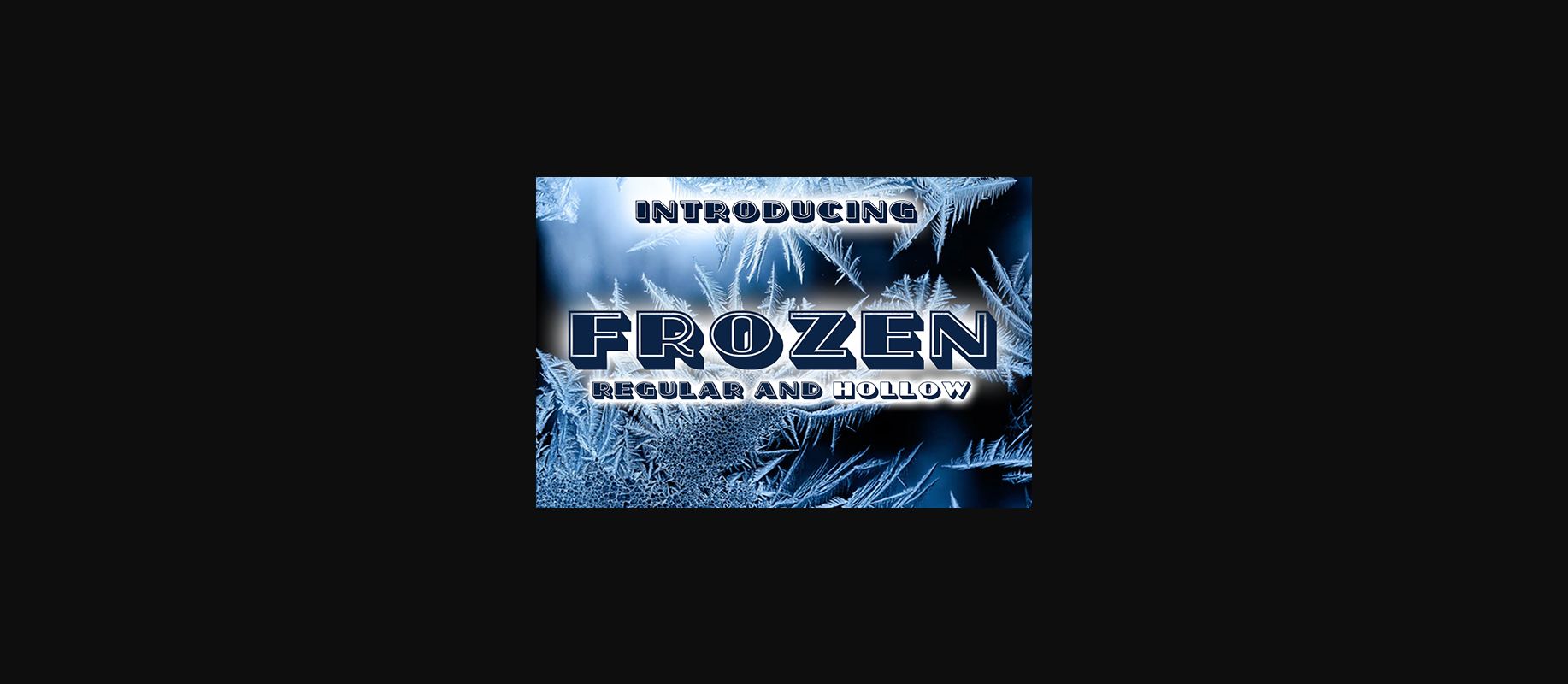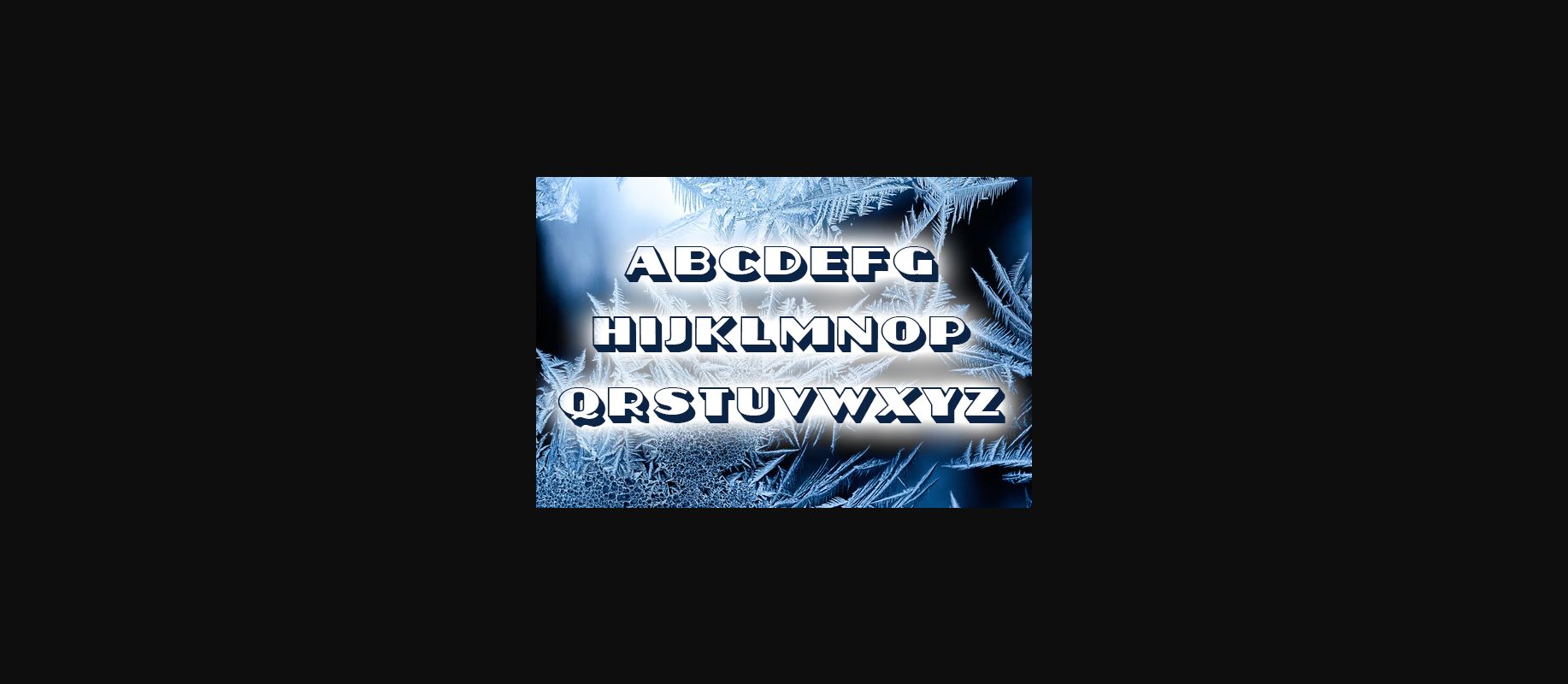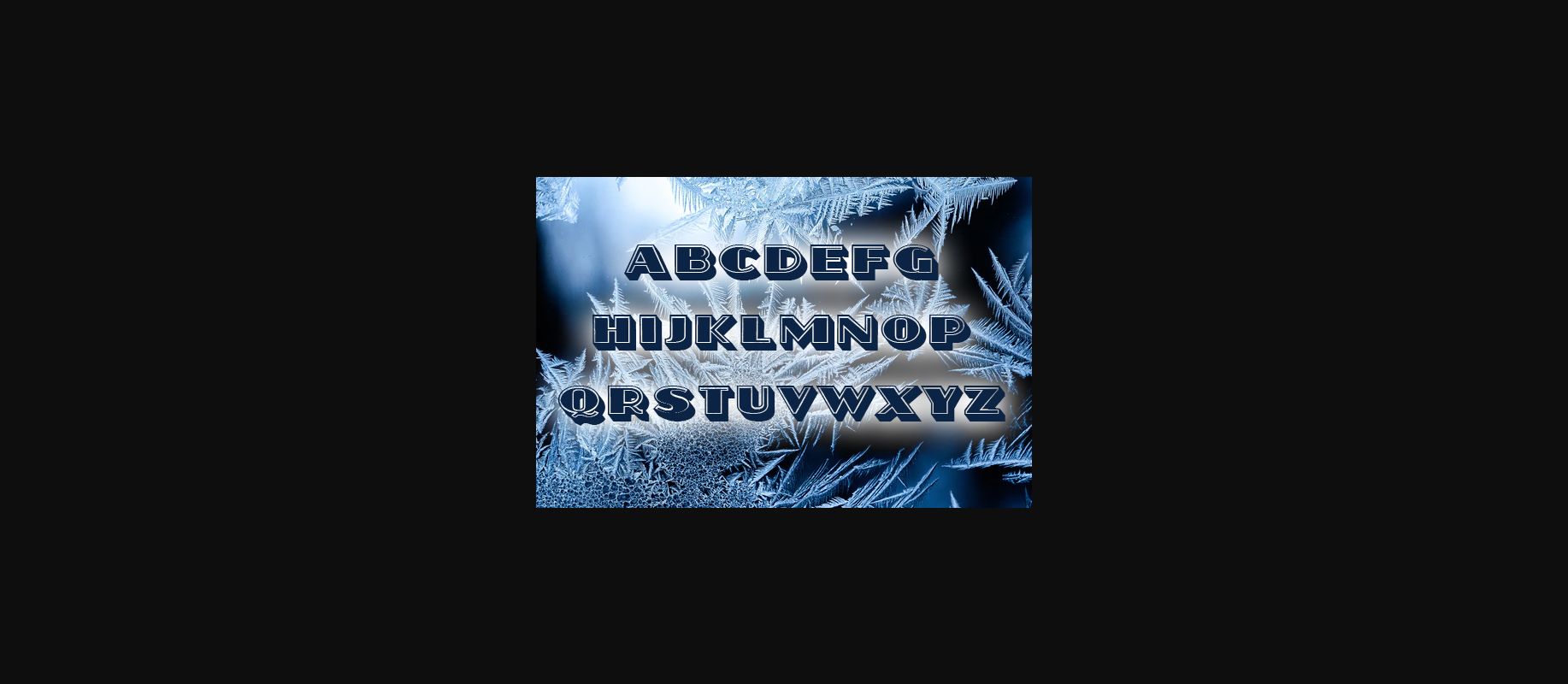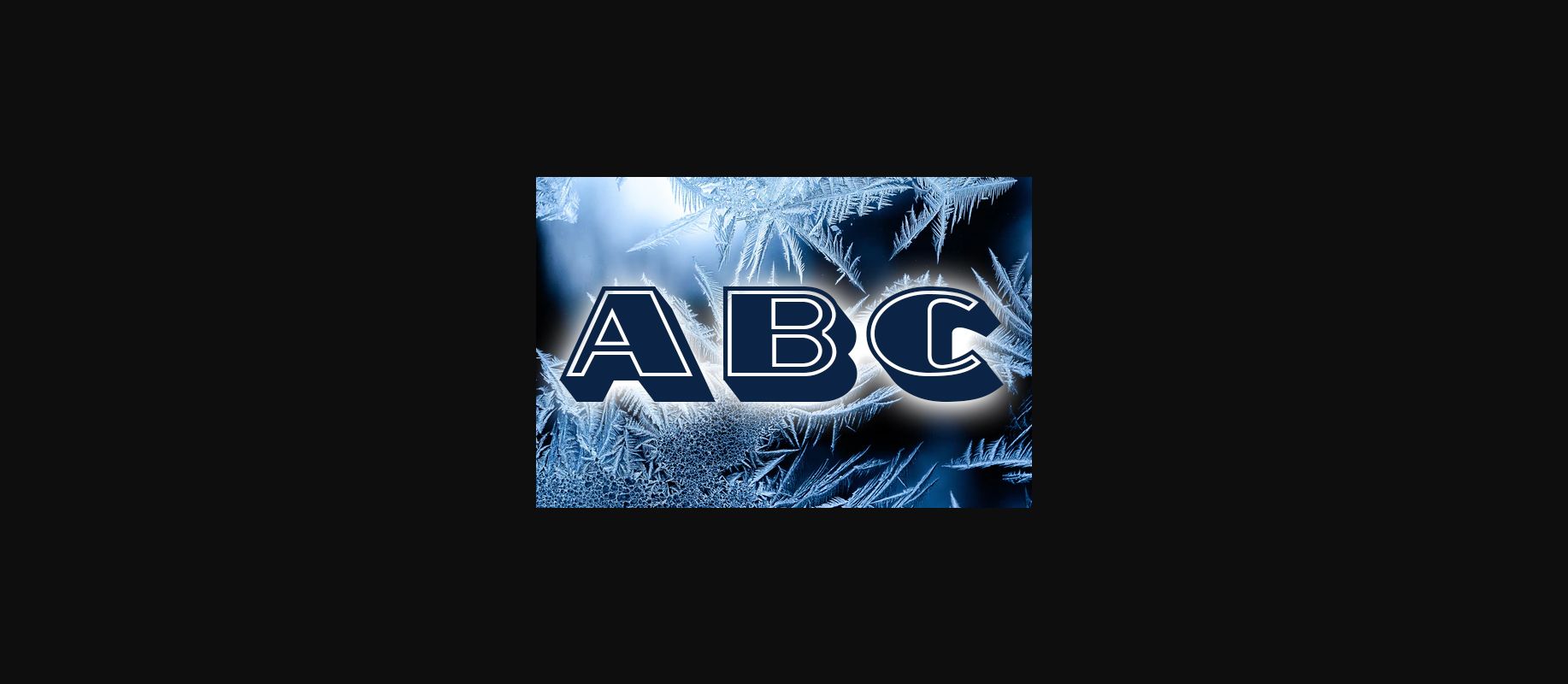
About Frozen Font
Frozen feels playfully nostalgic and delivers an incredible vintage aesthetic. Use this decorative font to add that special retro touch to any design idea you can think of!